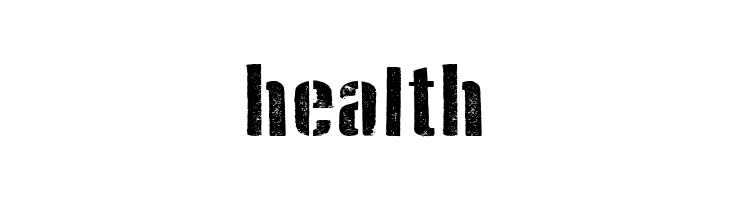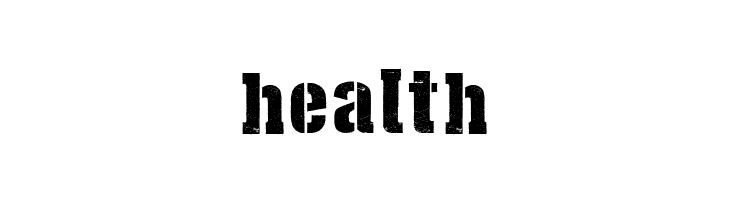
A bold, stencil-style font with a rugged, military-inspired design.
A bold, distressed stencil-style font with an industrial, vintage feel.
A bold, distressed stencil font with a vintage, industrial feel.
A bold, distressed stencil font with a rugged, military-inspired look.
A rugged, military-inspired stencil font with a bold, worn appearance.
A bold, stencil-style font with geometric shapes and clear cutouts, perfect for impactful designs.